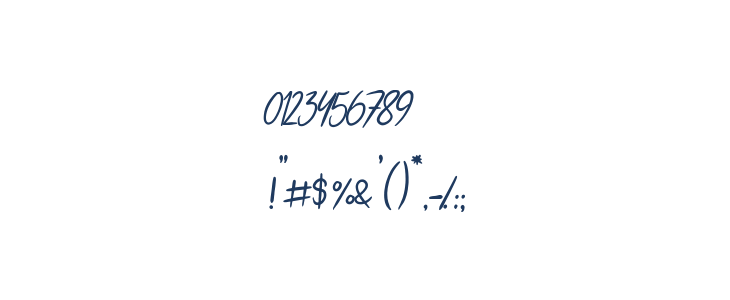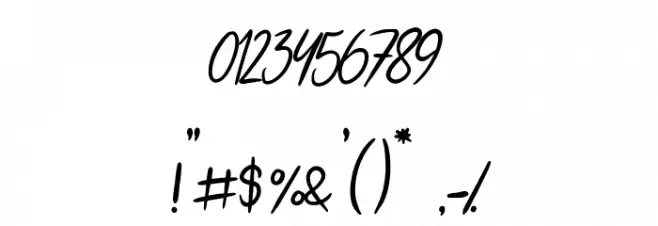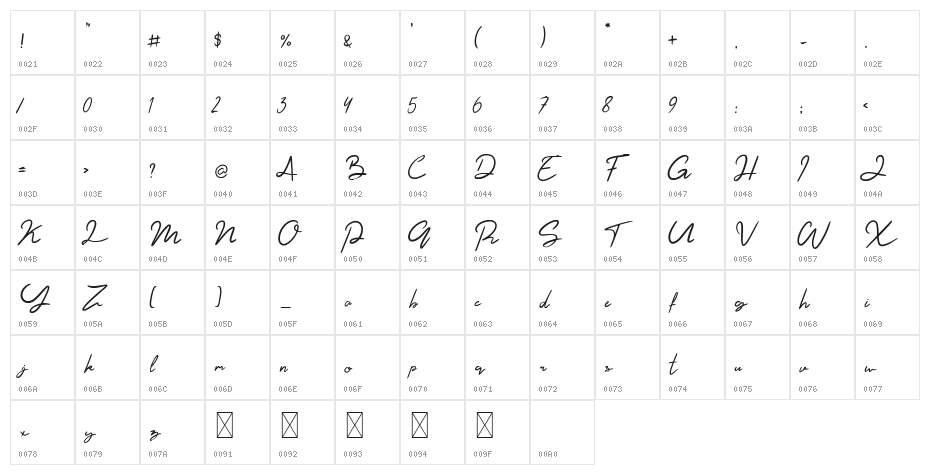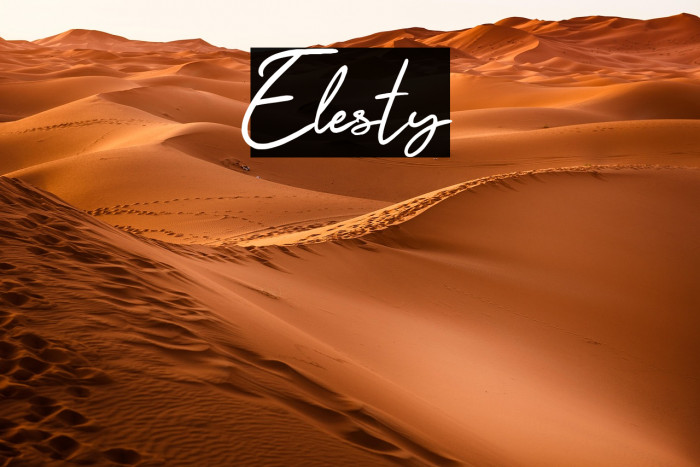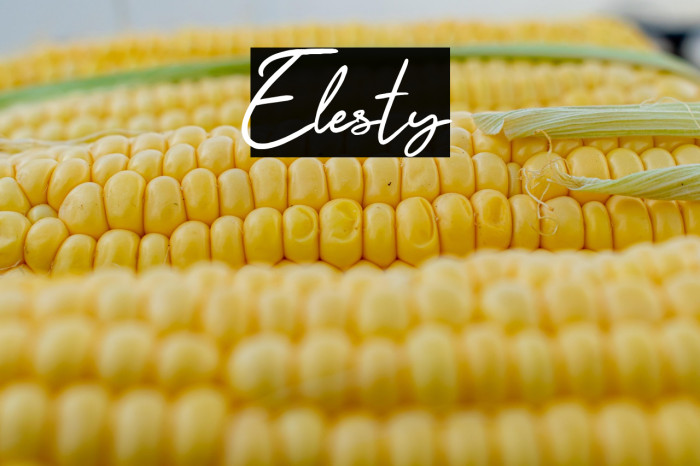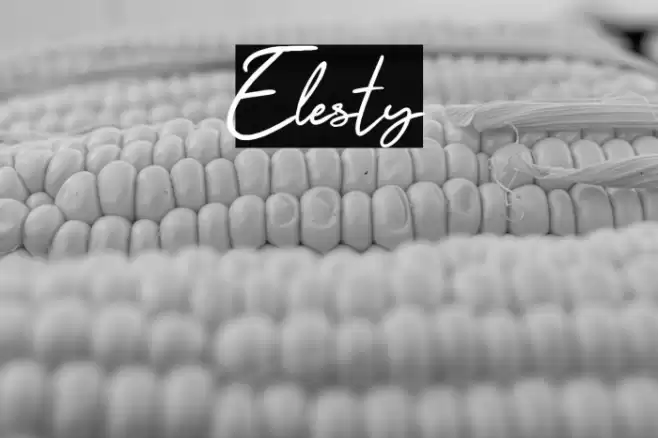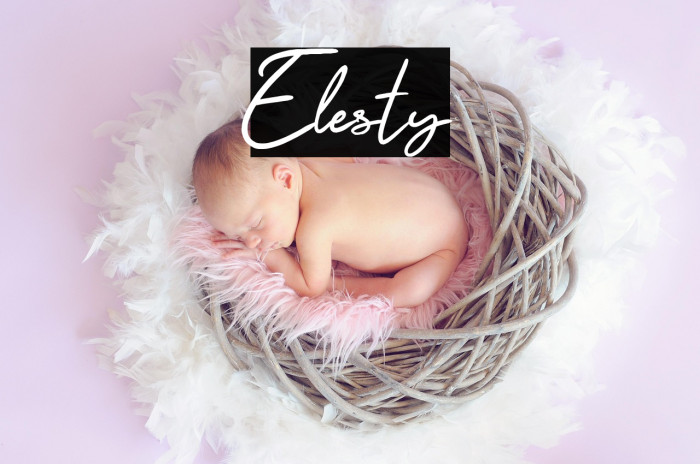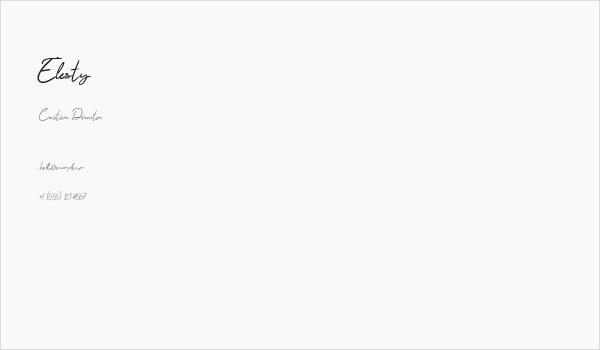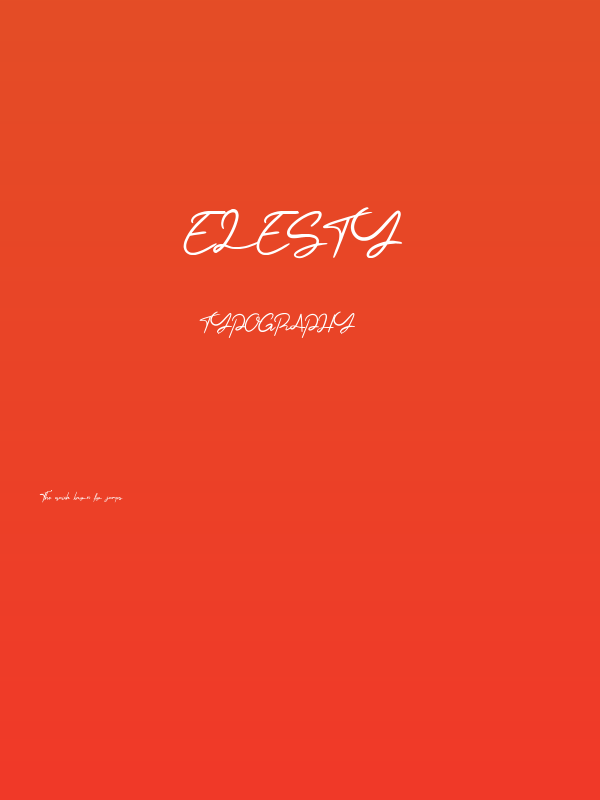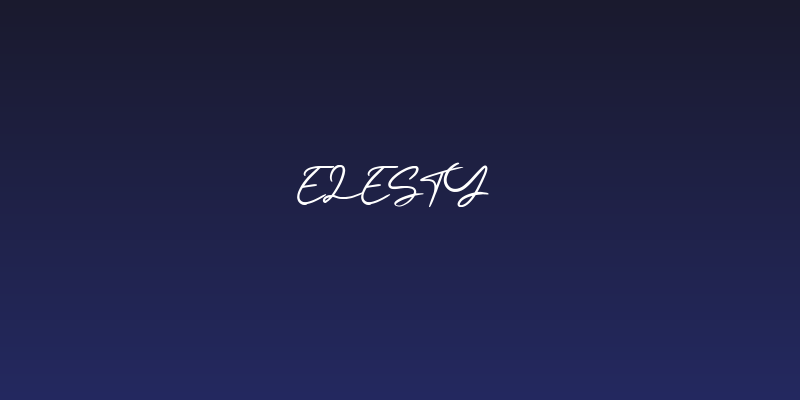
Elesty Font
Elesty Description
This elegant script font features fluid, connected strokes that mimic the natural flow of handwriting. The uppercase letters are bold and sweeping, with a graceful flair that adds a touch of sophistication. The lowercase letters maintain a consistent style, offering a seamless transition between characters. The numerals are clear and distinctive, maintaining the font's overall aesthetic. Special characters are thoughtfully designed, ensuring they blend harmoniously with the rest of the typeface. This font exudes a sense of elegance and personal touch, making it ideal for projects that require a handwritten feel.
| Proposed Projects | Ideal for wedding invitations, greeting cards, personal branding, and elegant logos. |